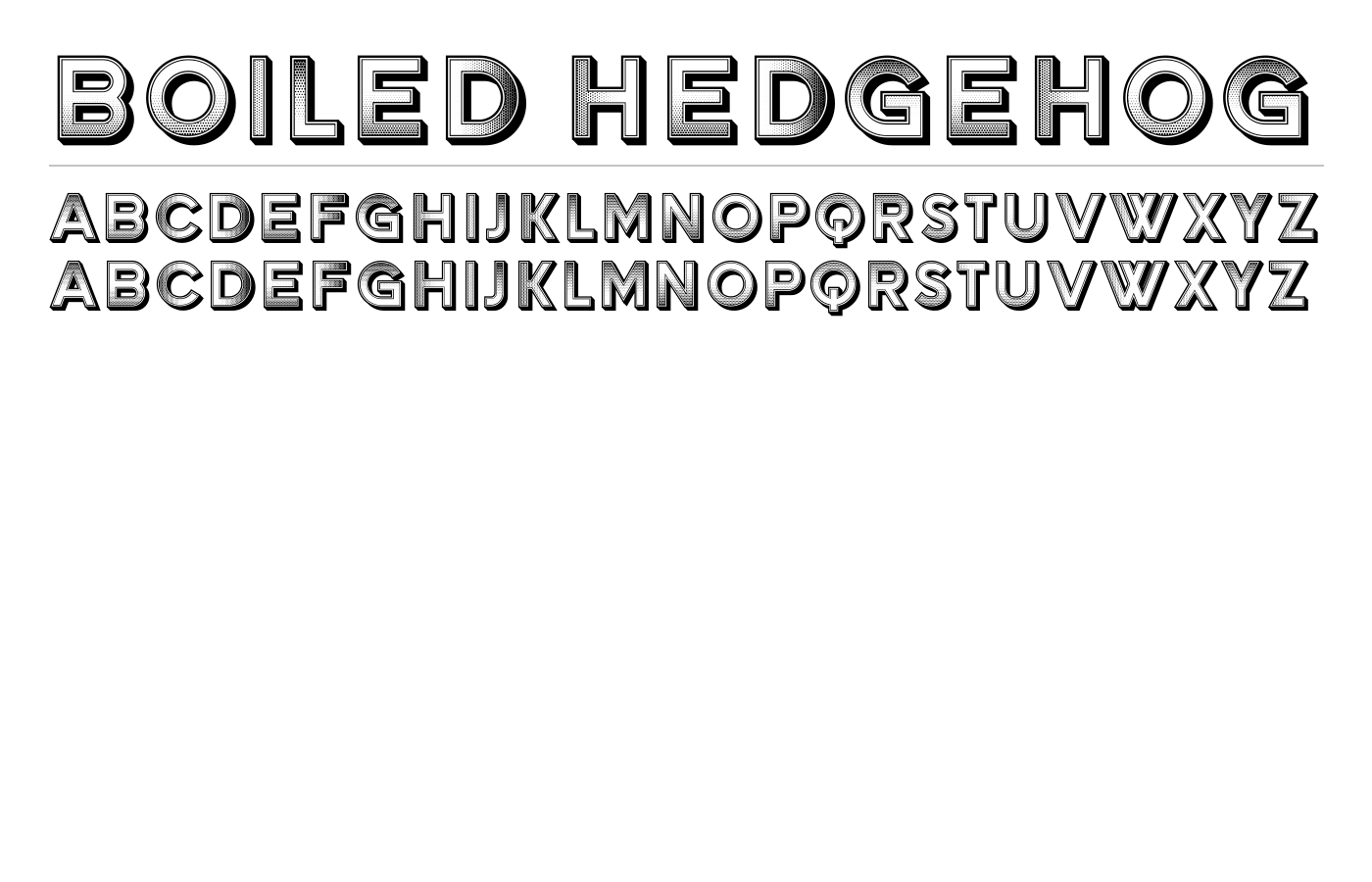
Boiled Hedgehog is a bold, playful sans serif display font featuring a striking three-dimensional effect with halftone shading that adds a vintage comic book vibe. Its uppercase letters are wide and geometric with clean lines and subtle stroke contrasts, making it perfect for eye-catching headlines, posters, and packaging that want to convey fun energy and retro charm. This font works well for brands seeking a unique and approachable look with a touch of nostalgic style.
Boiled Hedgehog Font
About Boiled Hedgehog Font